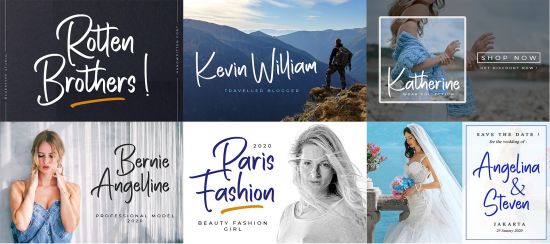
DesignOptimal - Rotten Brothers Font
Rotten Brothers is a stunning script font that will make any design idea stand out. Fall in love with its unique charm!